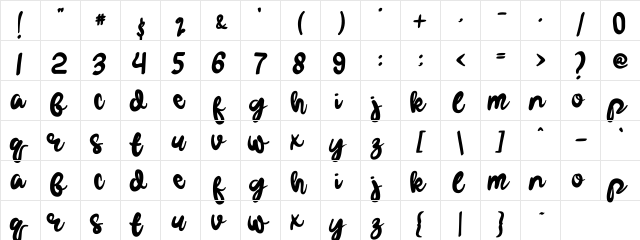
Gelowing Demo
Design Context for Gelowing Typeface
Gelowing is a composed and adaptable typeface that performs quietly and consistently across a wide range of design contexts.